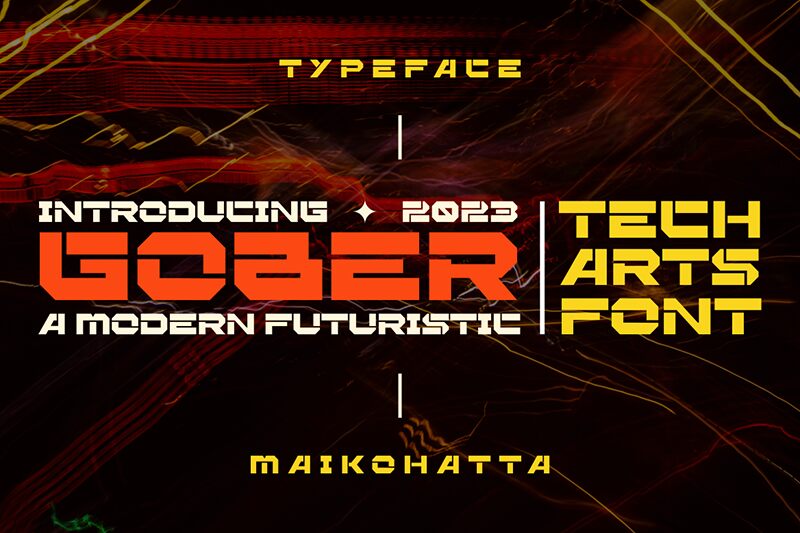
Gober font is a futuristic display typeface crafted by Gilang Ternadho. Its bold, expanded characters are geometric and angular, achieving an overall modern aesthetic with ease. Used to deliver a high-tech feel with its digital-inspired design, Gober combines some unique complementary elements that form each letter’s sharp and attention-grabbing look.
This free font can highlight any project or help you create brand new designs such as advertisements, product labels, books and album covers. This goes next to website and app banners, event invitations for concerts or movie premier nights, gaming user interface texts, social media posts…